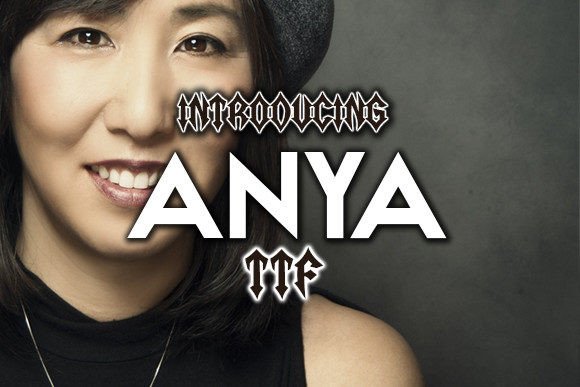
Behold Anya Font, the epitome of elegance and charm, a sans serif font that will elevate your designs to new heights. Step into a world of visual intrigue with Anya and let your creativity soar. Crafted with meticulous attention to detail by the talented vladimirnikolic, this font is a true masterpiece, ready to transform your ideas into captivating realities.
With Anya Font in your arsenal, you can create eye-catching posters that command attention and leave a lasting impression. Its clean lines and sharp edges bring a touch of sophistication to any design, whether you're promoting an event, showcasing a product, or simply expressing your artistic flair. Let Anya Font be your silent partner in creating posters that turn heads and ignite imaginations.
Create flyers that are more than just pieces of paper—they're mini masterpieces that capture the essence of your message and demand to be noticed. Anya Font's versatility shines through, effortlessly adapting to any style or theme. From bold and vibrant to elegant and understated, Anya Font has the power to transform your flyers into works of art that leave a lasting impression.
Unleash your inner designer and create t-shirts that are more than just clothing—they're walking billboards that reflect your personality and passions. With Anya Font, your t-shirts will be the talk of the town, turning heads wherever you go. Its crisp and legible letterforms ensure that your message is loud and clear, leaving an indelible mark on the minds of those who encounter it.
Anya Font is not just a collection of characters; it's an open invitation to let your creativity run wild. Its intuitive and easy-to-use nature makes it perfect for both seasoned designers and those just starting their design journey. Whether you're working on a personal project or a professional assignment, Anya Font has the power to turn your vision into reality.
So why wait? Dive into the world of visual enchantment and make Anya Font your new go-to sans serif font. Experience the difference that true quality and artistry can make. Let Anya Font be your creative companion, helping you craft designs that are not just visually appealing but also deeply meaningful. Embrace the beauty of simplicity and let your designs speak volumes.